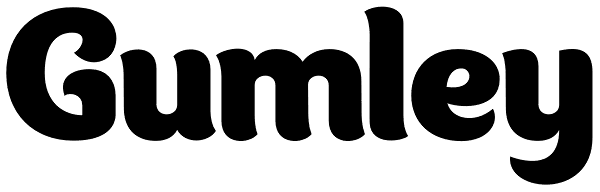
Gumley
Gumley - a font which has a fresh natural look and feel inspired by nature, at the same time it has a gummy feel which would fit very well on packaging design. With a little inspiration every product can look awesome with this font, starting from...